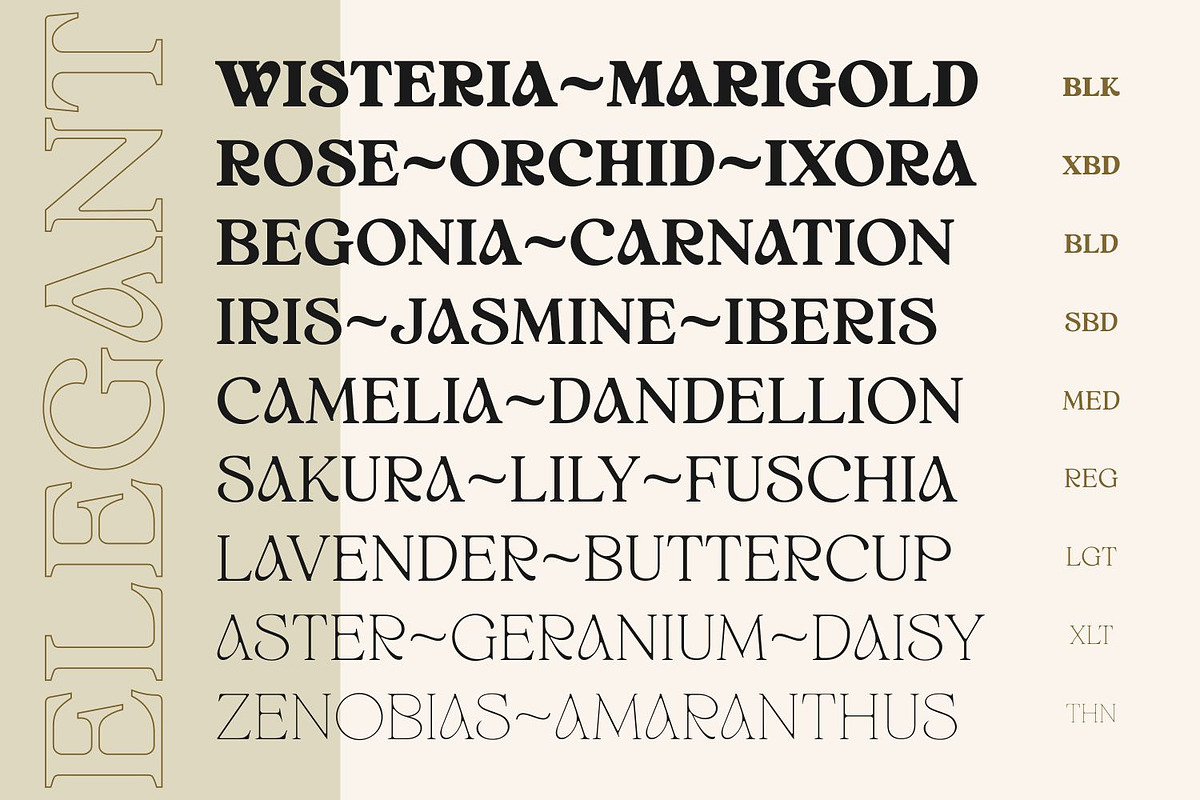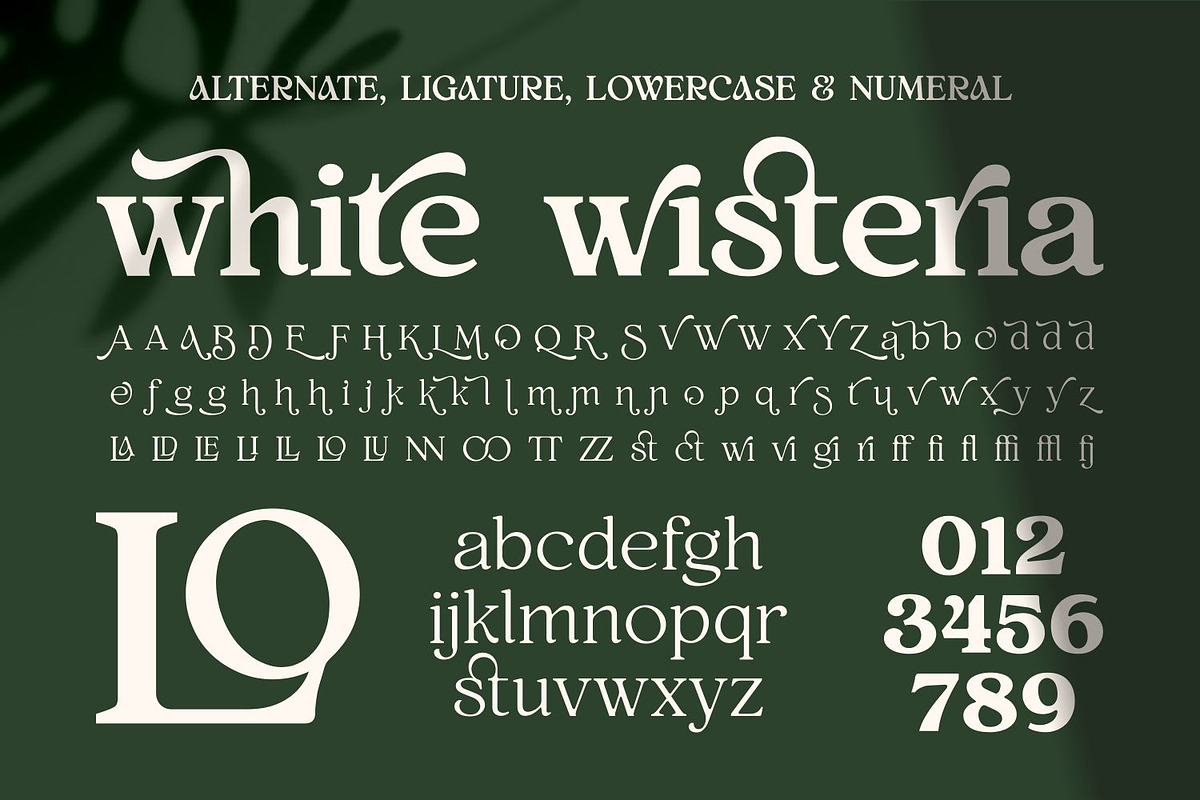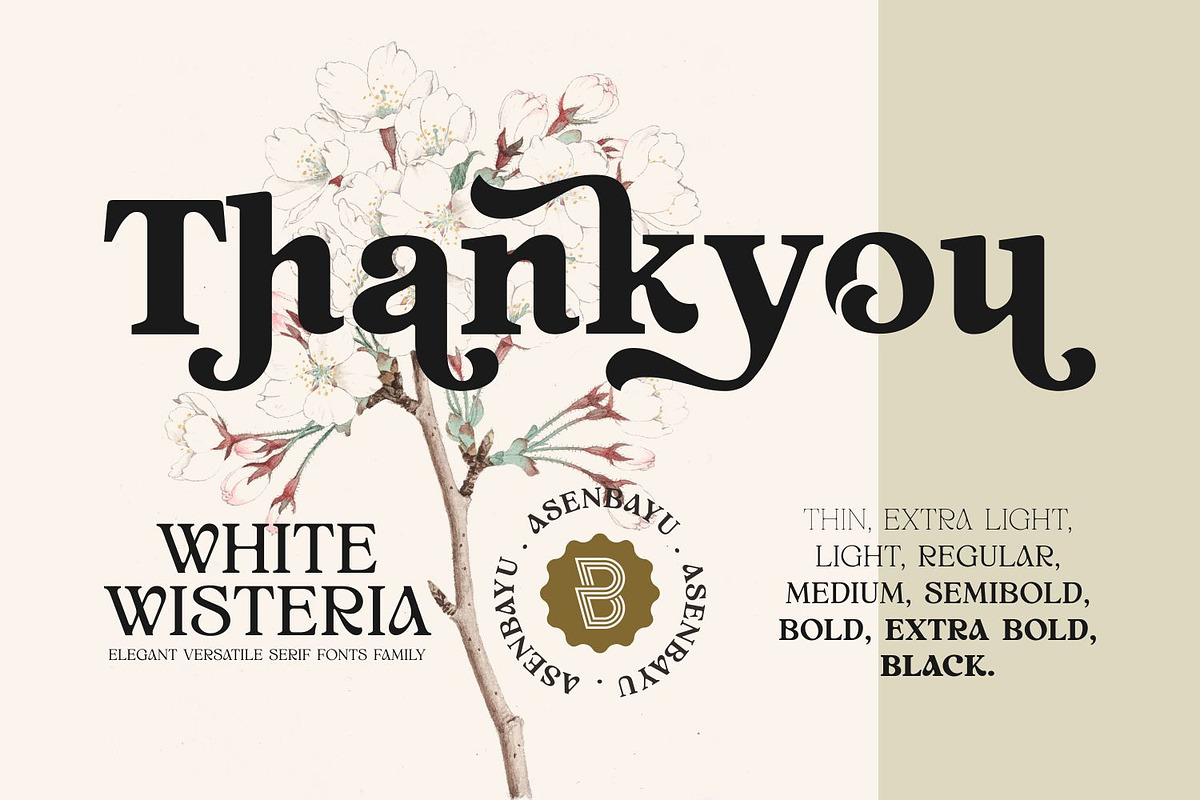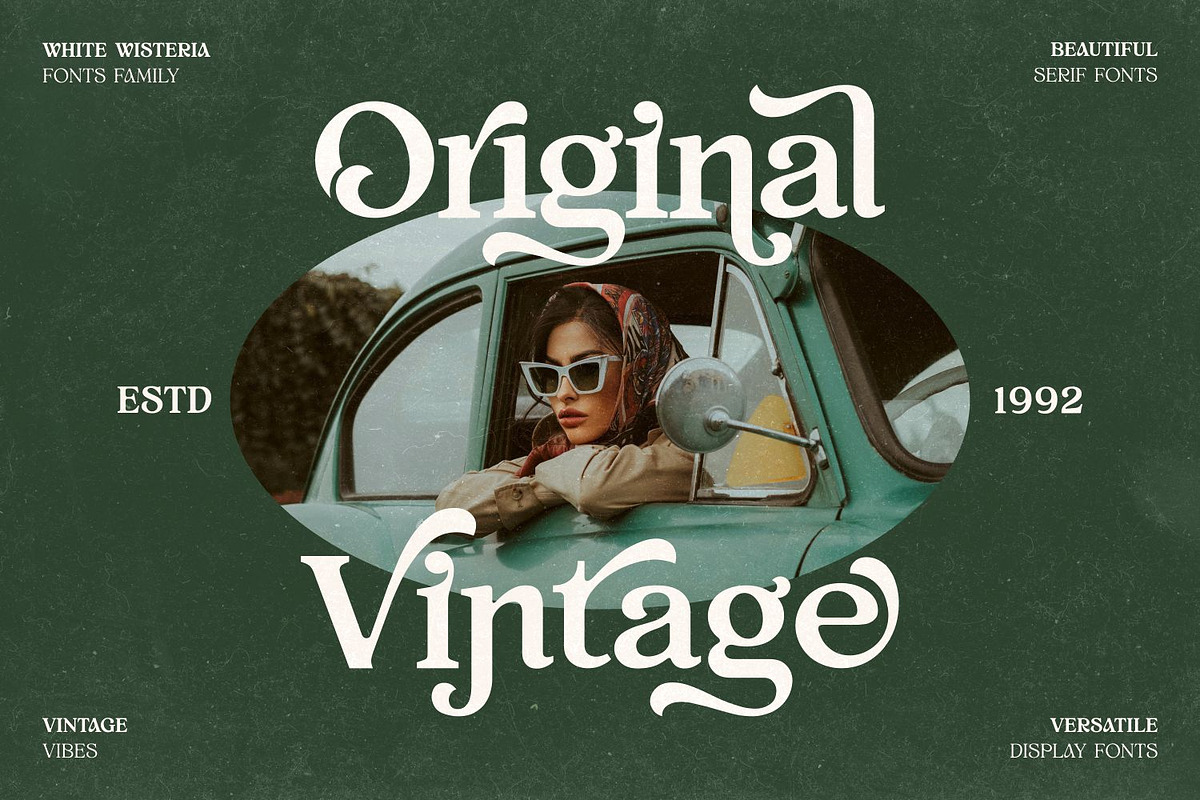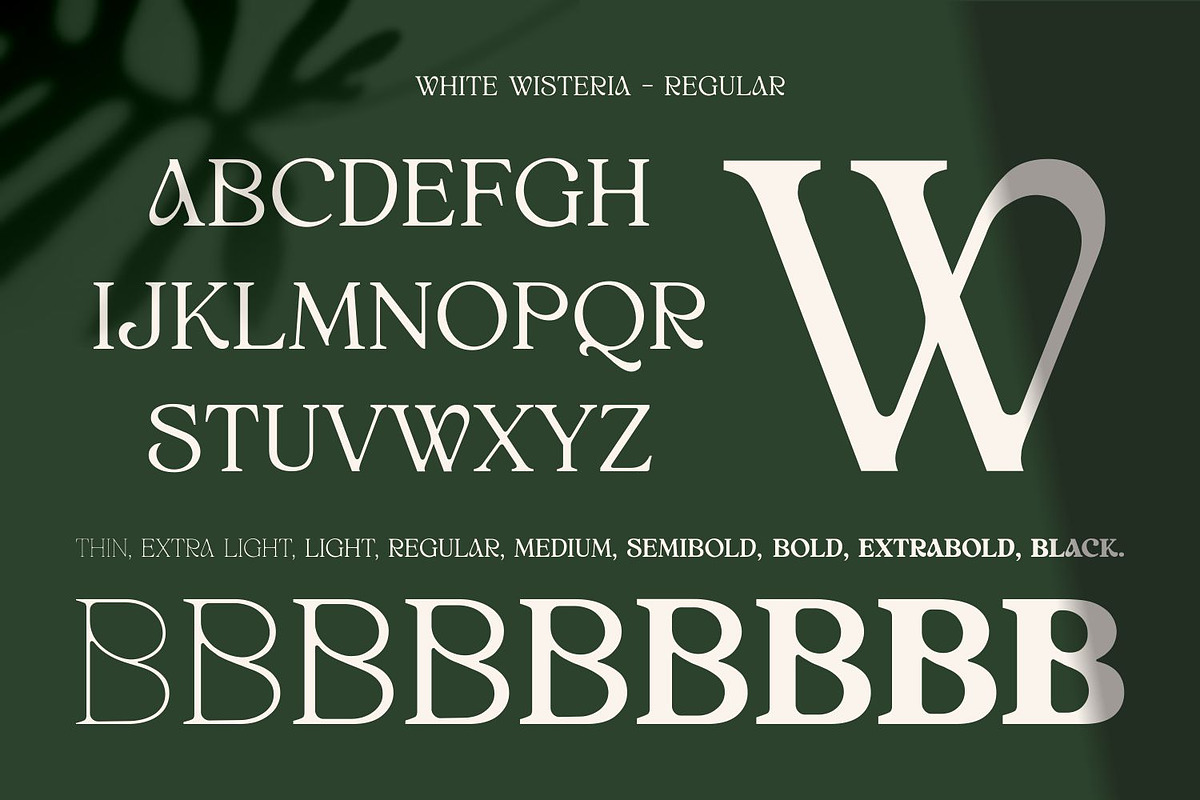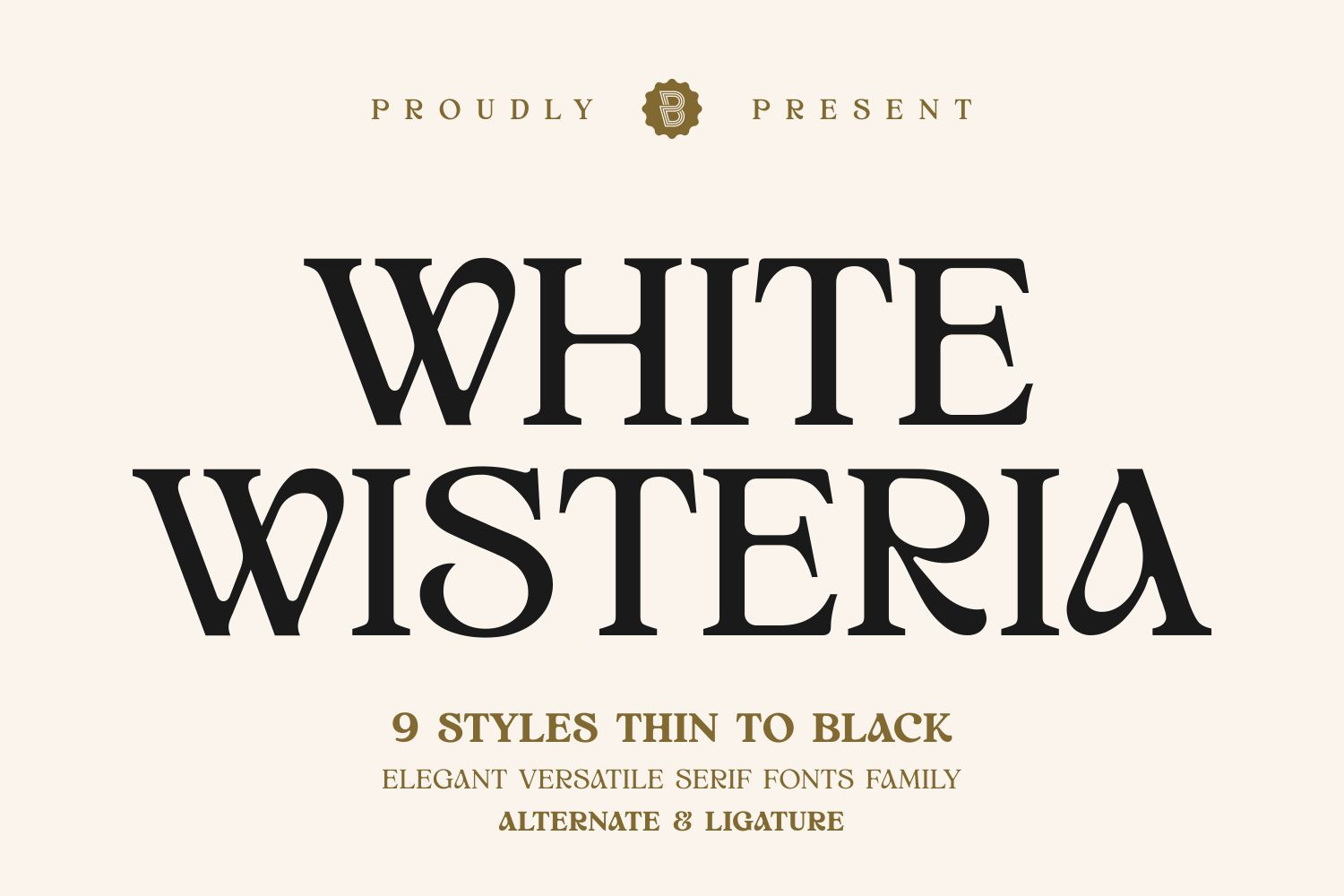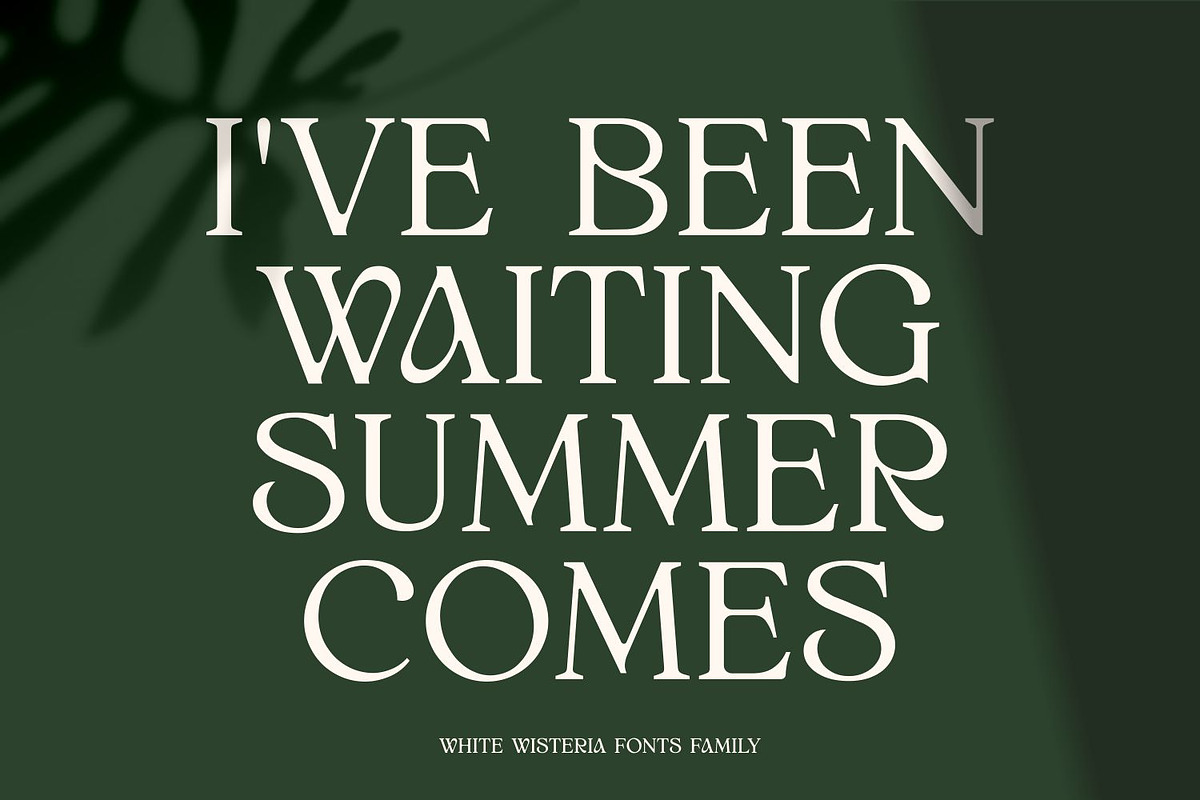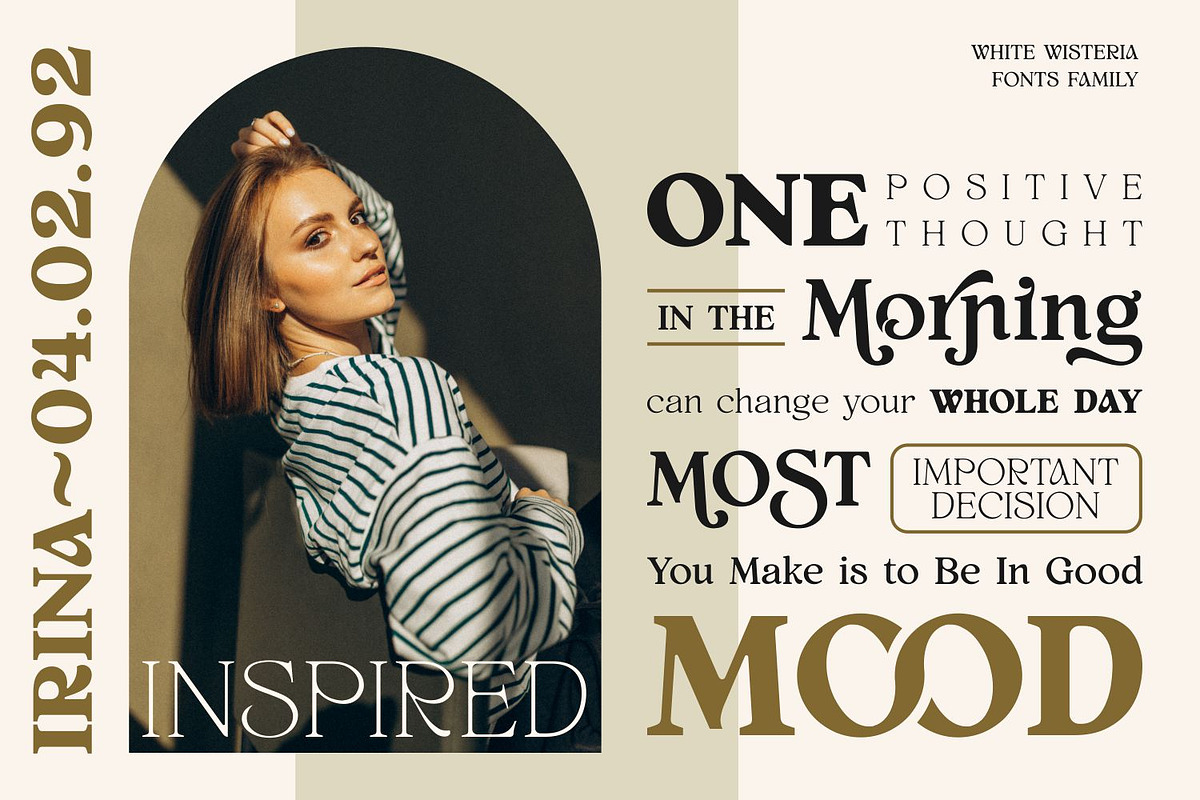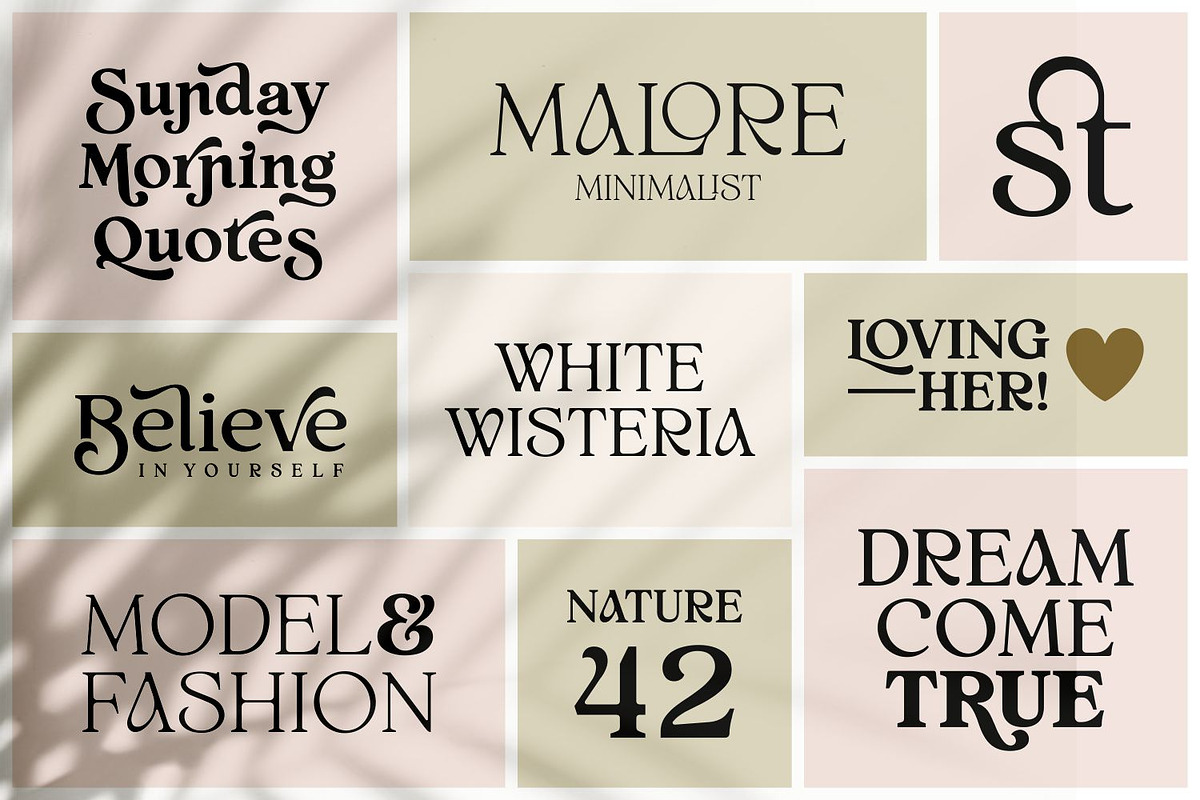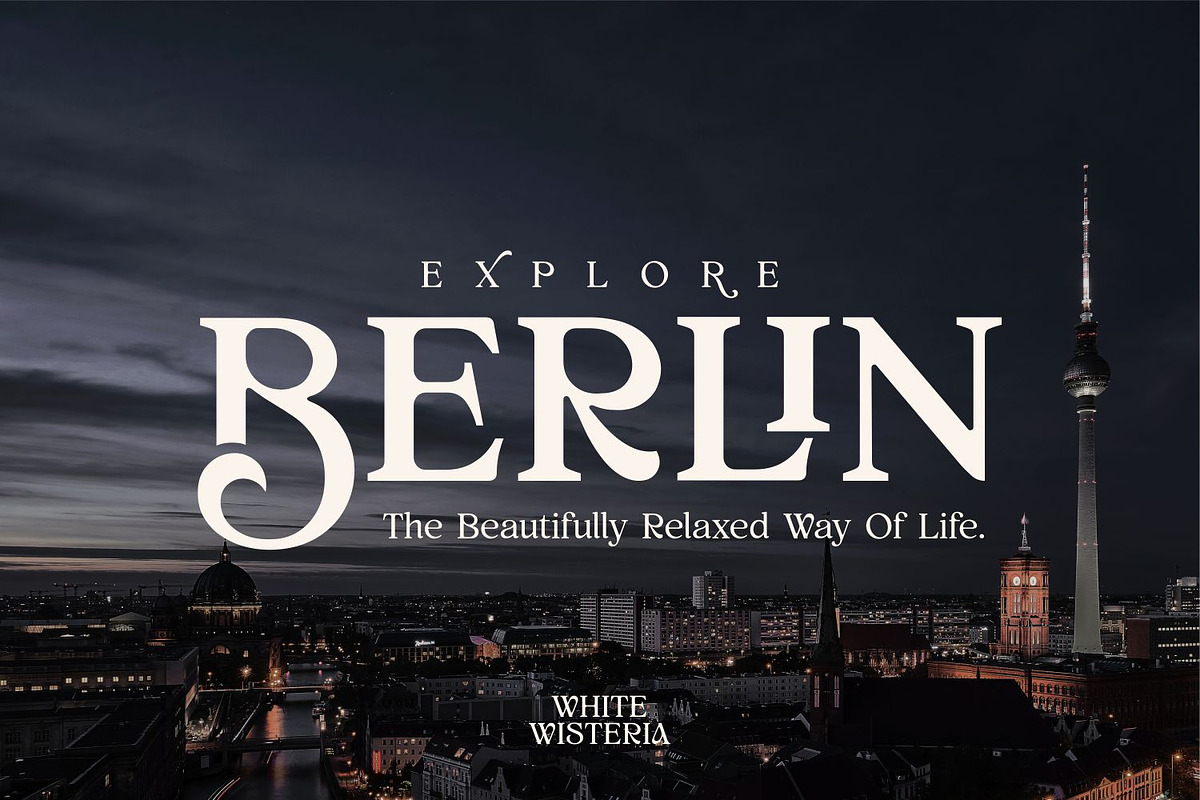
White Wisteria Fonts Family
White Wisteria is an elegant versatile serif font family consisting of 9 styles. This font has natural curved proportions and has soft corners. You can use this font in vintage, classic and retro designs. This font gives a beautiful, classy and luxurious impression to your design. This font is perfect for a variety of projects such as logos, branding, fashion, magazines, labels, posters, album covers and many more.
White Wisteria fonts are available in 9 styles: Thin, Extra Light, Light, Regular, Medium, Semibold, Bold, Extra Bold, Black. These fonts feature Open Type Format (OTF), Kerning, Ligature Style, Alternative Style, Numeral, Symbol and Multilingual Supports.